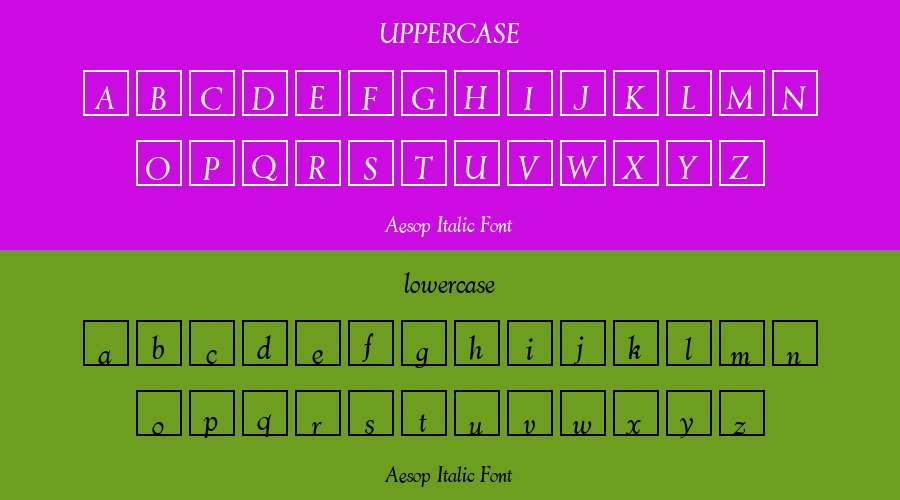
About Aesop Italic Font
When typographic excellence matters most, Aesop Italic Font delivers through its thoughtful blend of rounded apexes and originality. Specially crafted for product naming, it offers the value and aesthetic excellence required for sophisticated design work. Every detail serves a purpose.
The character set showcases thoughtful details like curved brackets alongside functional stylistic sets. This proves especially valuable in retail environments, where digital conversion directly influences results. Particular attention was paid to stroke modulation and character during development.